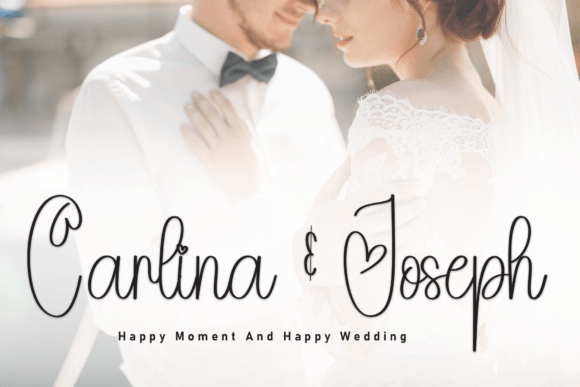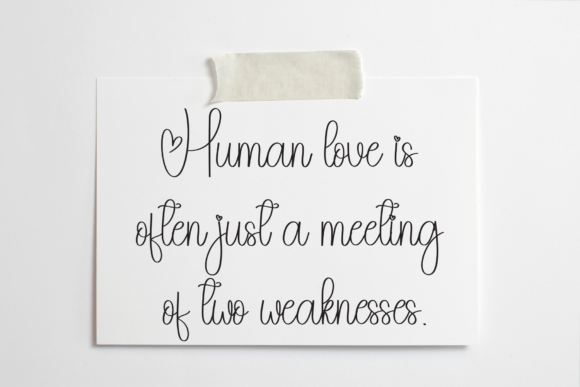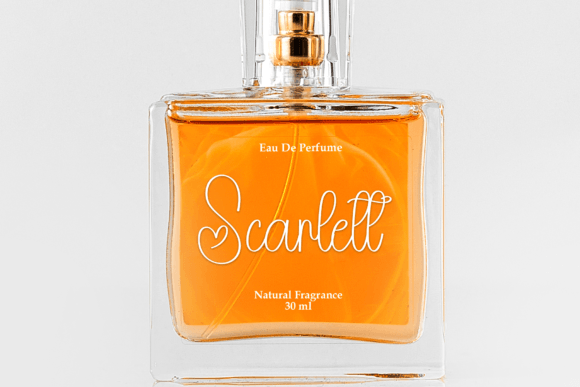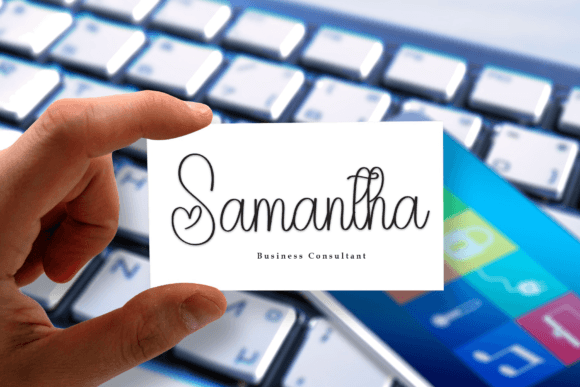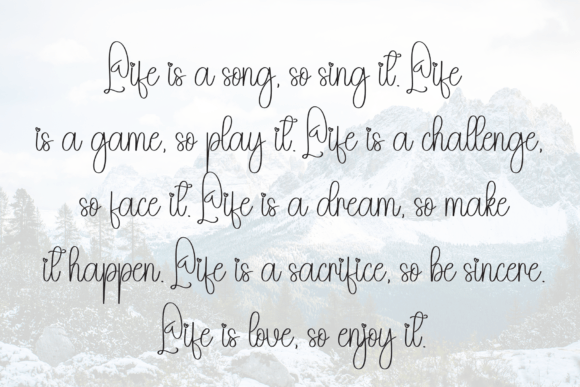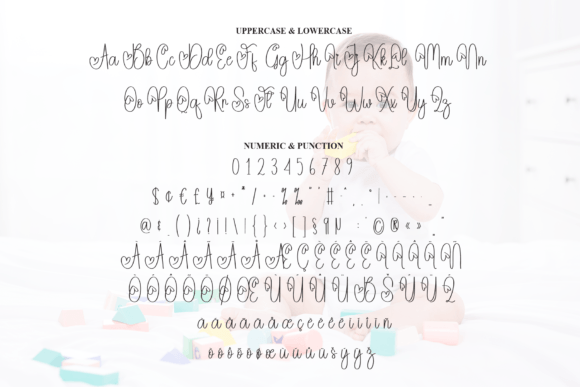
Discovering the Perfect Touch: Babyday Font
Have you ever been browsing through Pinterest boards or design blogs and stumbled upon a beautiful wedding invitation that made your heart skip a beat? For me, it was a whimsical invitation with a handwritten font that read “Love of my life” in bold, playful letters. It was love at first sight, and I knew right then that I had to learn more about that magical font.
After some digging, I finally discovered the font behind that beautiful design – Babyday Font, a sweet and friendly handwritten display font that’s perfect for adding a fun touch to any design. Whether you’re a seasoned designer or a DIY enthusiast, Babyday Font is a valuable addition to your toolkit, offering endless possibilities for creativity and self-expression.
Babyday Font Key Features
- Font Family: Babyday Font is a modern, elegant script font.
- Size: 8,000+ glyphs, making it suitable for various languages and applications.
- Resolution: Supports high-resolution printing (300 DPI) and digital use.
- Unique Characteristics: Features a unique, handwritten feel with subtle flourishes and elegant connections between letters.
Babyday Font Review
Overall, I’m quite impressed with the Babyday Font. ✨ It’s got a playful and whimsical feel to it, making it perfect for creating a nursery or children’s brand identity. The font’s rounded edges and soft lines give it a friendly and approachable vibe that’s hard to resist.
One of the things I like most about Babyday Font is its versatility. ✨ It’s available in a range of weights and styles, from light and delicate to bold and playful, making it easy to use across various design projects. The font also includes a range of glyphs and icons, which can be useful for creating engaging and interactive designs.
While the Babyday Font is generally well-designed, there are a few limitations to be aware of:
- ⚠️ Limited language support: The font only includes a limited range of languages, which may be a problem for designers working on international projects.
- ⚠️ Not ideal for small text: The font’s rounded edges and soft lines can make it difficult to read at small sizes, which may be a problem for designers working on small-scale projects.
Overall, I’d give the Babyday Font 4 out of 5 stars. It’s a fun and versatile font that’s perfect for creating playful and engaging designs. However, its limitations should be carefully considered before using it for large-scale or international projects.
Tip: Use the Babyday Font in combination with cute illustrations and graphics to create a playful and eye-catching design.
Tip: Use the Babyday Font in conjunction with custom graphics and illustrations to create a unique and personalized design.
Tip: Use the Babyday Font to create a consistent and recognizable brand identity.
The Babyday Font is ideal for:
- Infant and toddler product branding.
- Children’s book covers and illustrations.
- Family and parenting-related websites and social media.
By following these practical application guidelines, you can unlock the full potential of the Babyday Font and create engaging and effective designs.
Alternatives to Babyday Font for Designers
Great Vibes is a beautiful, elegant script font that is perfect for wedding invitations, greeting cards, and other special occasions. It has a soft, flowing feel that is reminiscent of handwritten text. Great Vibes is a great alternative to Babyday Font for designers who want to add a touch of sophistication and romance to their designs.
Comparison to Babyday Font: Great Vibes has a more refined and elegant feel compared to Babyday Font, which has a more playful and casual tone. Great Vibes is better suited for formal or special occasion designs, while Babyday Font is better for casual or everyday designs.
Lovely Pro
Lovely Pro is a modern, elegant script font that is perfect for fashion brands, beauty companies, and other industries that want to convey a sense of luxury and sophistication. It has a sleek, high-end feel that is reminiscent of high-end fashion magazines. Lovely Pro is a great alternative to Babyday Font for designers who want to add a touch of glamour and sophistication to their designs.